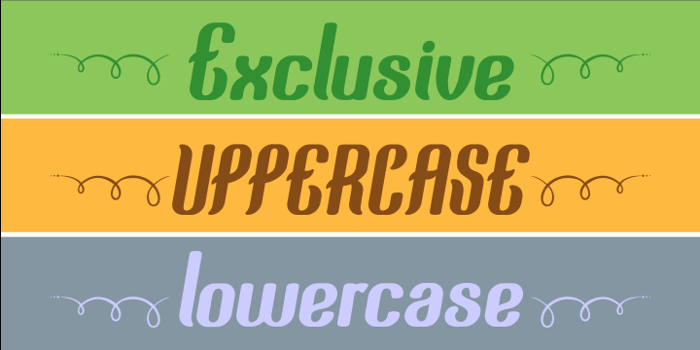
squimpy Font
Squimpy is a unique clean appearance typeface with the sleek rounded lines,can be used in various application like web pages, screen, title.and so on